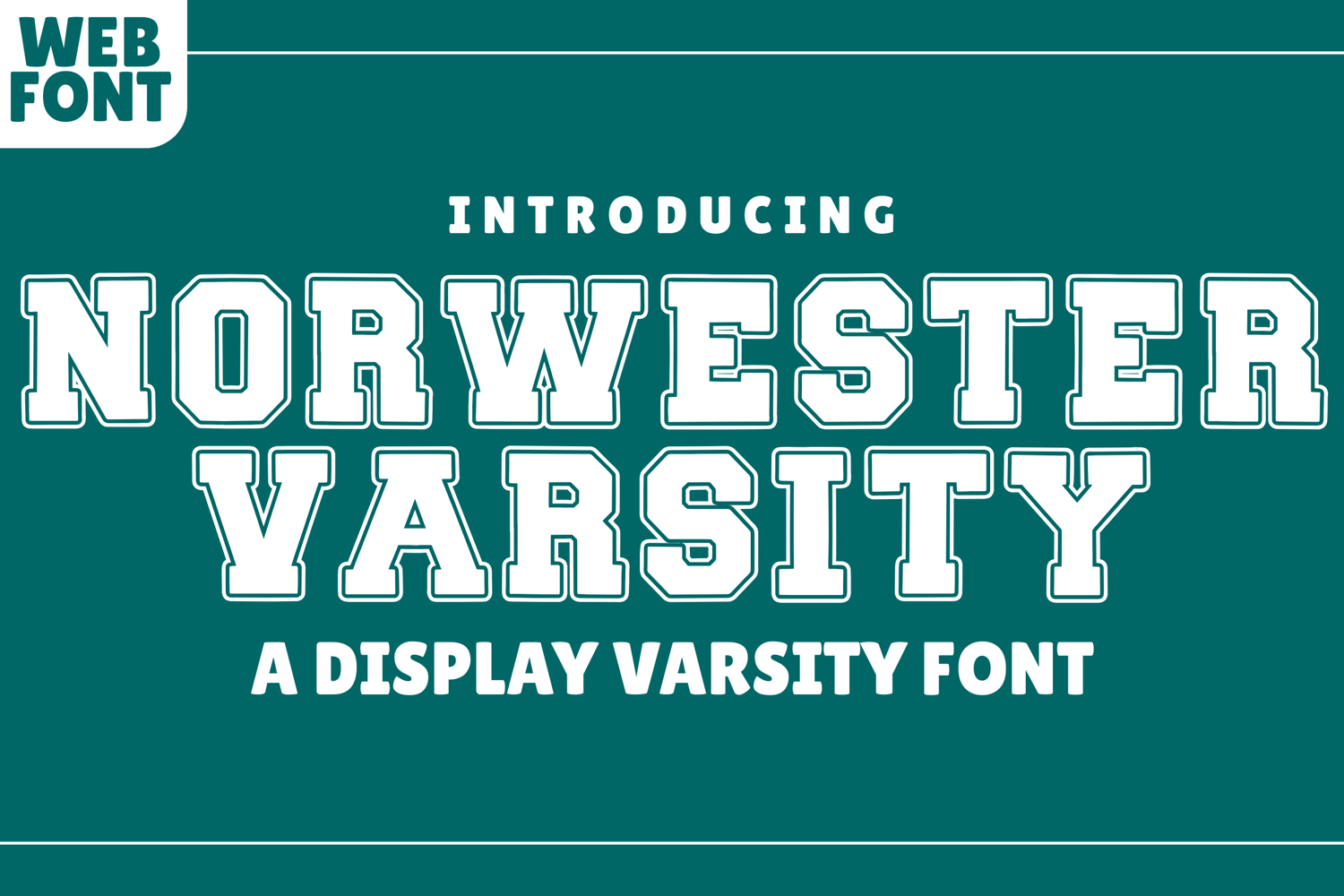
Norwester Varsity Bold Athletic Block Font
Norwester Varsity is a bold, all-caps athletic font inspired by classic collegiate and varsity lettering. With its condensed block letterforms and strong geometric design, this font is perfect for projects that need a clean, powerful, and sporty look.
Whether you’re designing team jerseys, school posters, event banners, or retro college logos, Norwester Varsity delivers the strength and impact of traditional varsity typography with a modern edge.
✨ Features:
• All-Caps Varsity Typeface with bold block styling
• Condensed, geometric design for maximum readability
• Includes uppercase, numbers, punctuation & multilingual support
🎯 Perfect For:
• Sports team branding & jerseys
• College & varsity posters
• School event flyers & graduation signage
• Athletic apparel & merchandise
• Bold editorial headlines & packaging